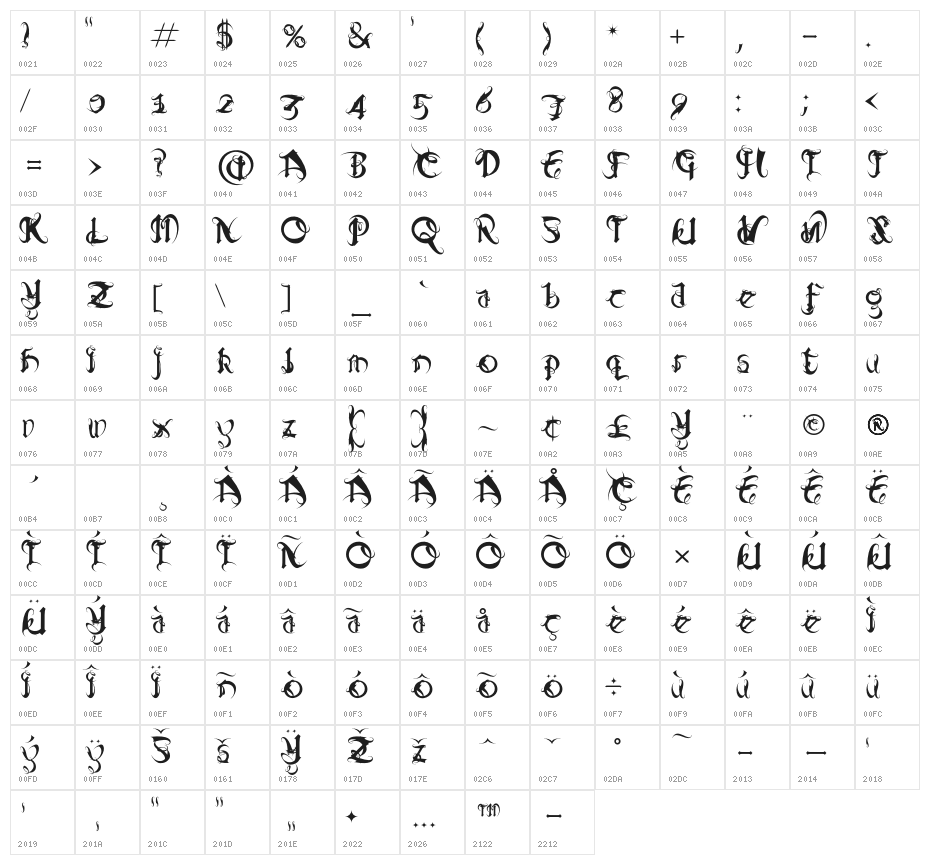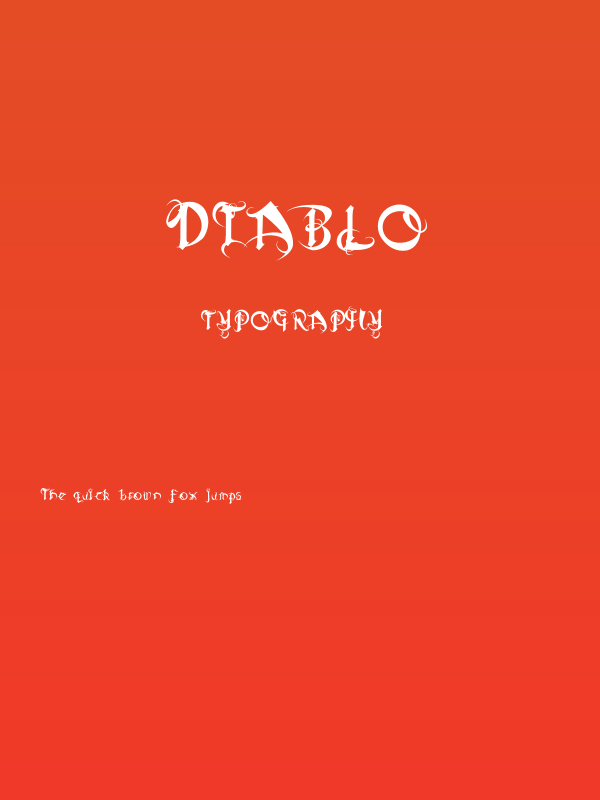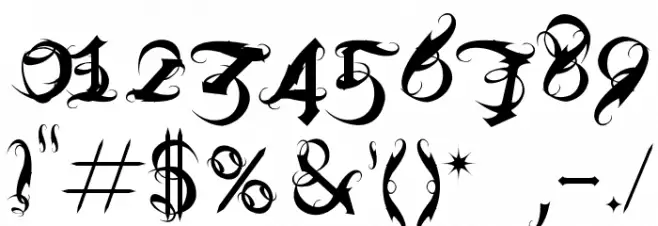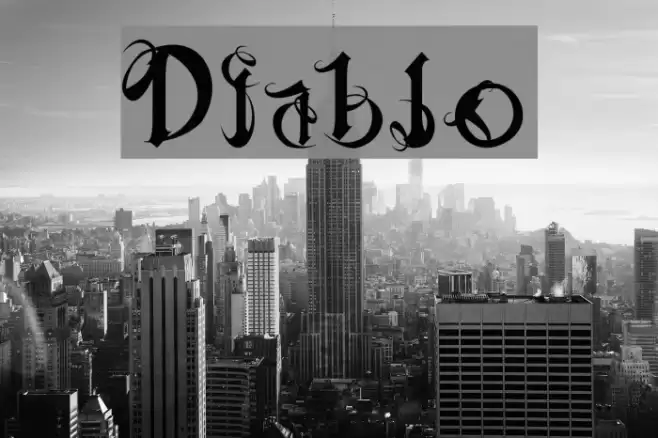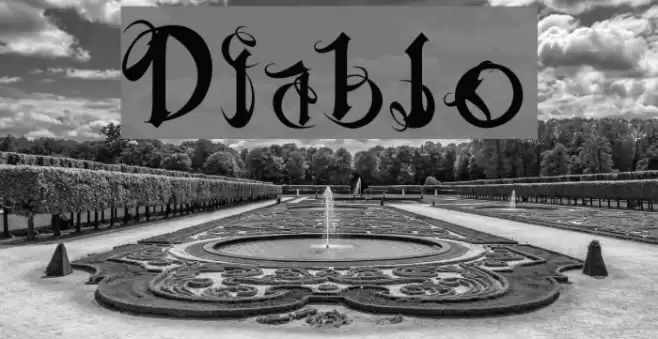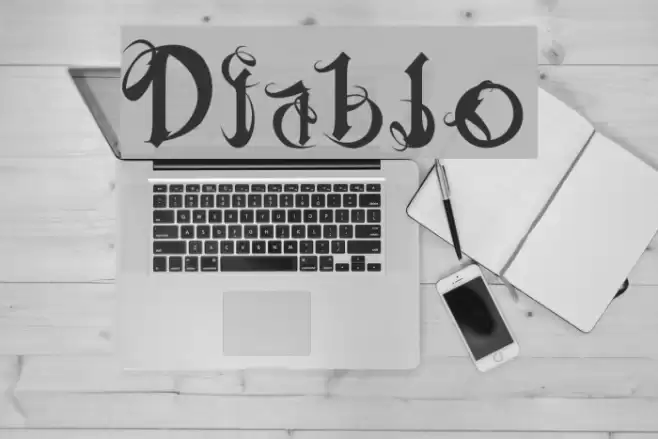
Diablo Font
Diablo Description
This font features an intricate and decorative style reminiscent of medieval calligraphy. The characters are adorned with elaborate swirls and flourishes, giving it a gothic and mysterious appearance. The uppercase letters are bold and commanding, while the lowercase letters maintain a consistent ornate design. Numbers and special characters follow the same elaborate pattern, ensuring a cohesive look throughout. The overall aesthetic is both dramatic and elegant, making it ideal for projects that require a touch of historical or fantasy elements.
| Use Case | Logos, Headlines, Decorative text |
| Proposed Projects | Ideal for fantasy book covers, game titles, historical event posters, and themed invitations. |